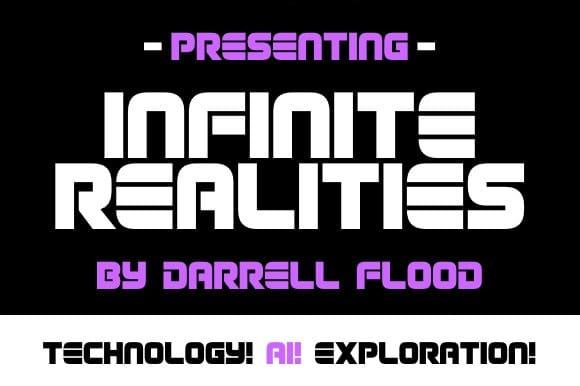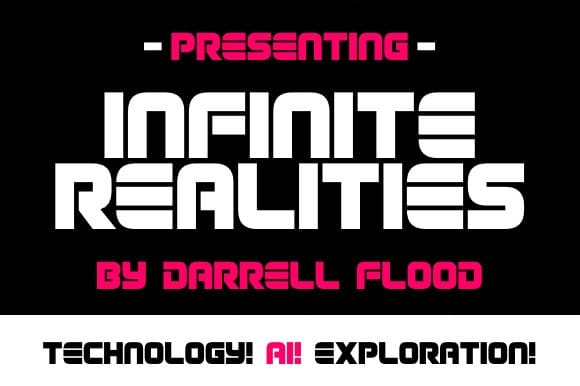
Infinite Realities Font
Infinite Realities Font a slick science fiction font in a clean, crisp style. Perfect for alien encounters, space exploration and general high tech or modern use!